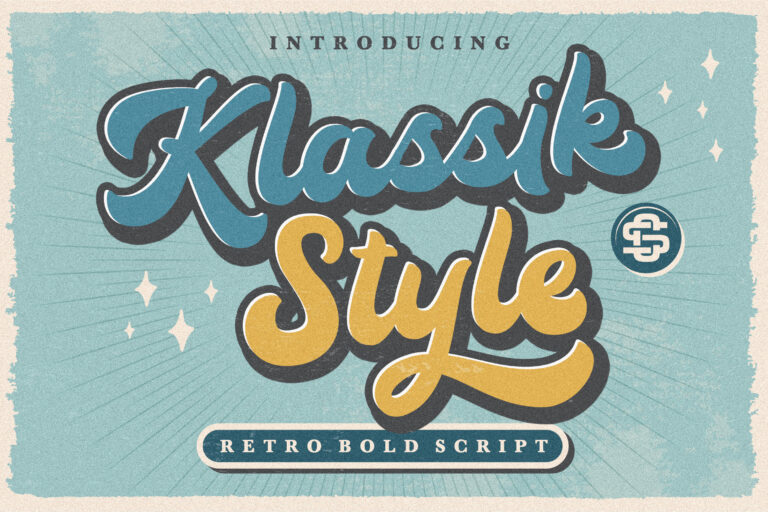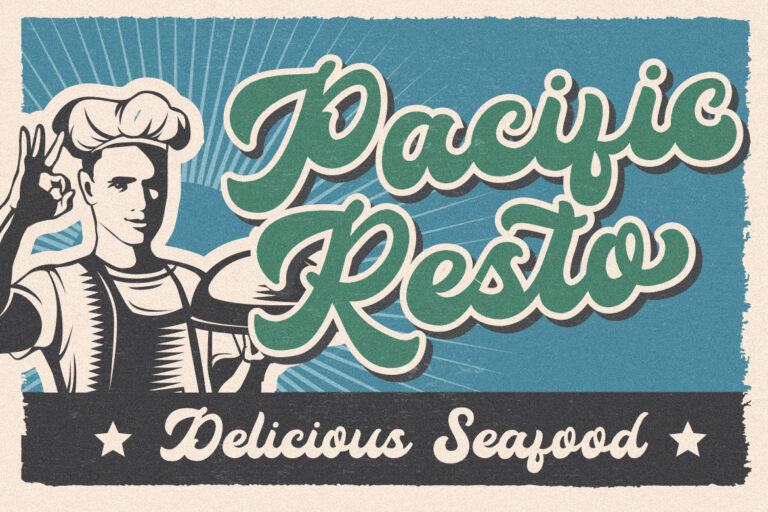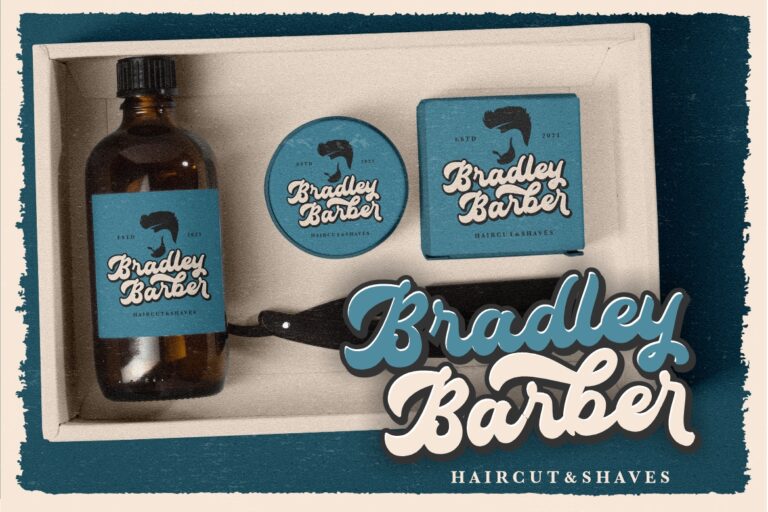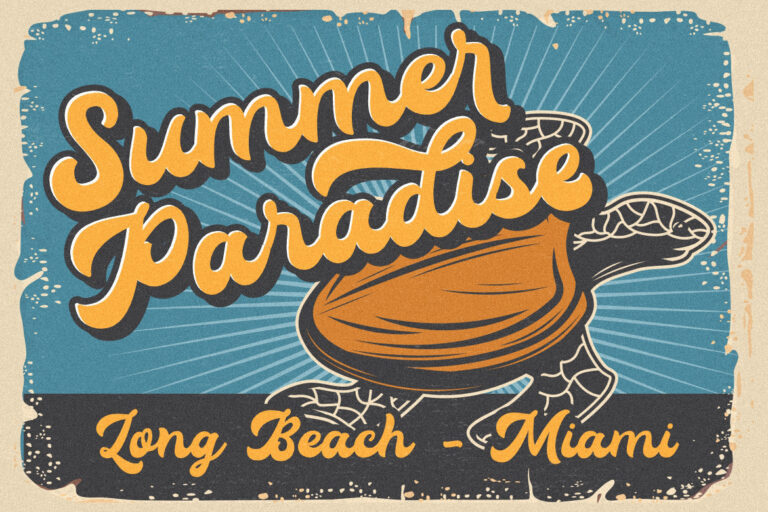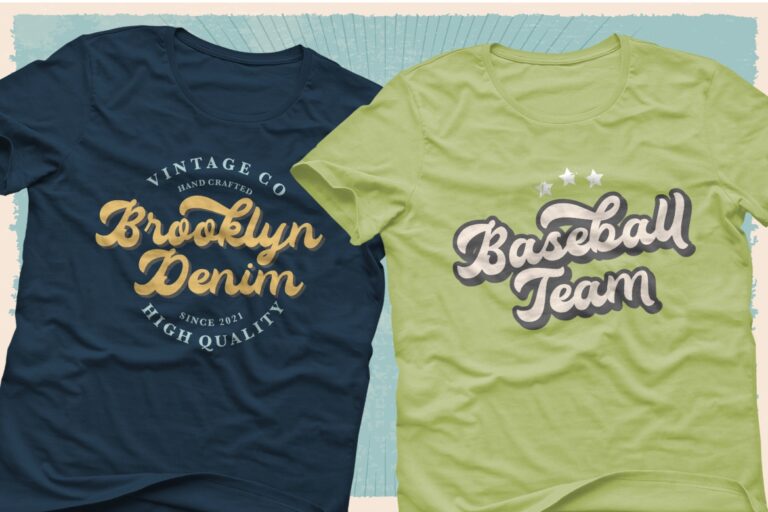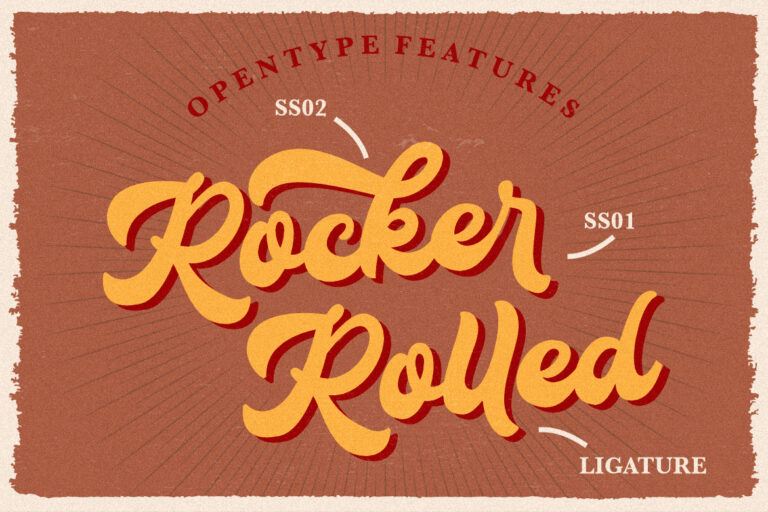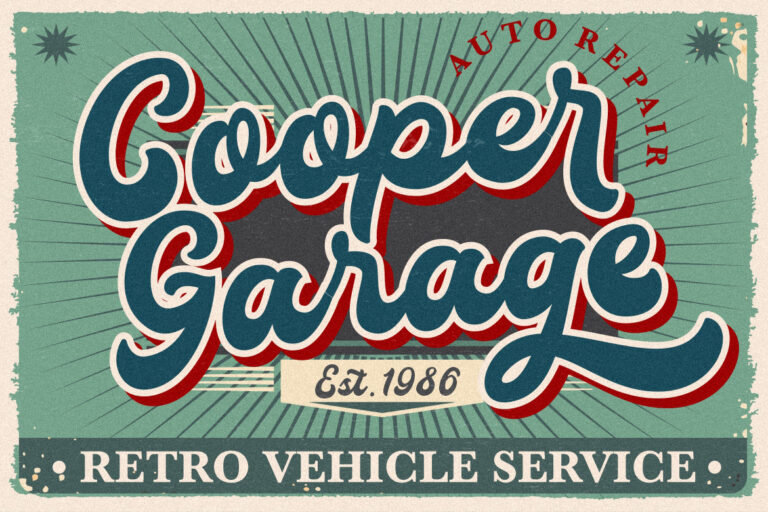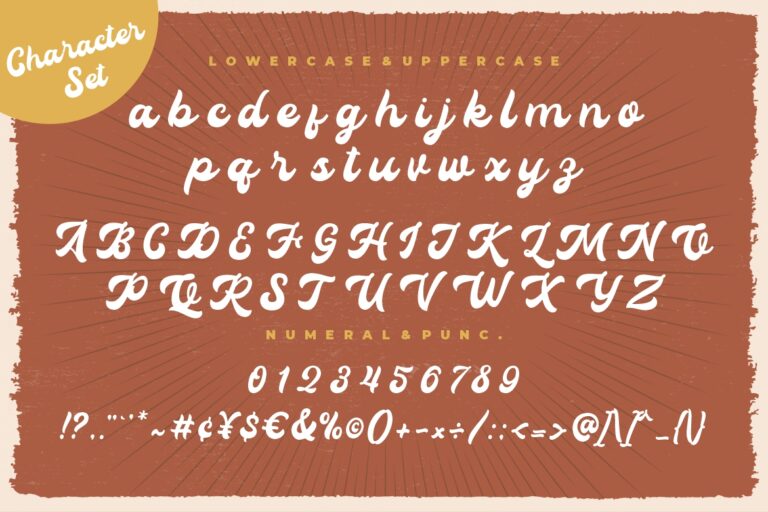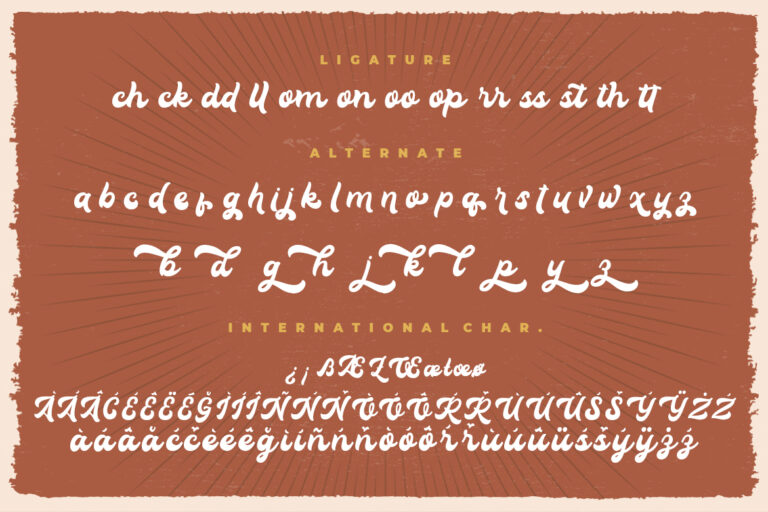
Klassik Style Retro Bold Script
Klassik Style is retro bold script font with made inspire by retro design poster and perfect for your vintage project.
Klassik Style is perfect for branding projects, logo, wedding designs, social media posts, advertisements, product packaging, product designs, label, photography, watermark, invitation, stationery and any projects that need handwriting taste.